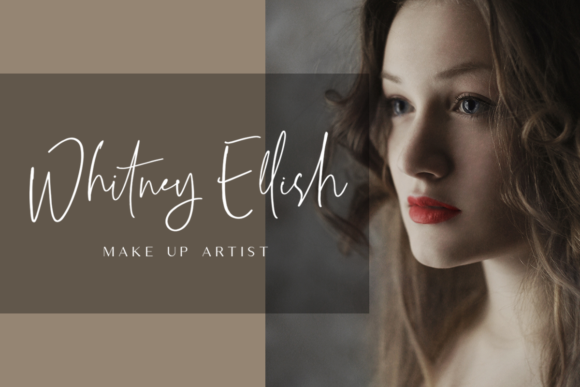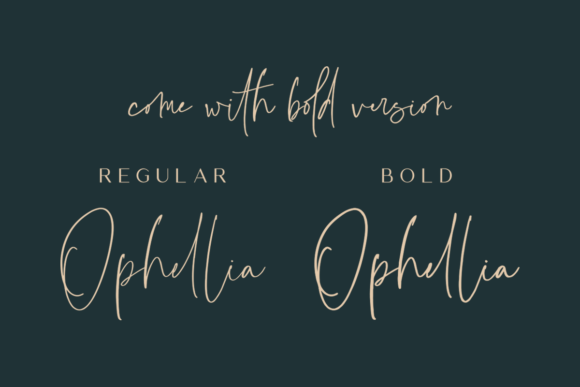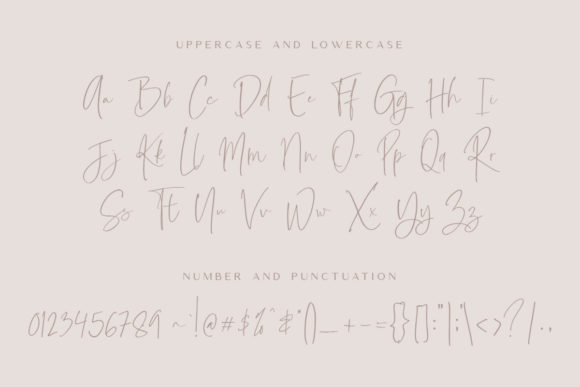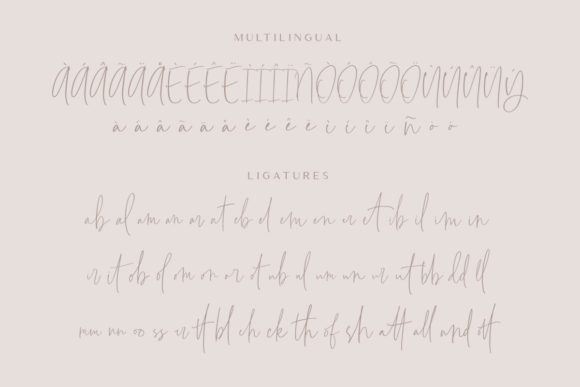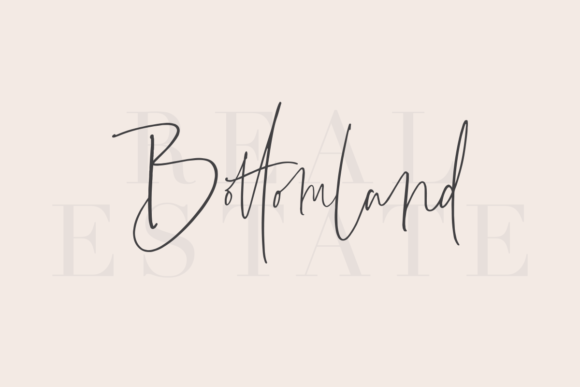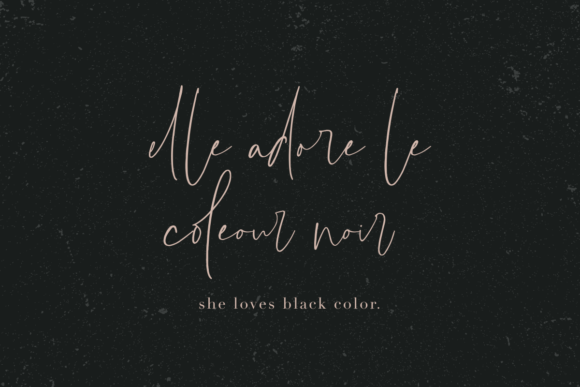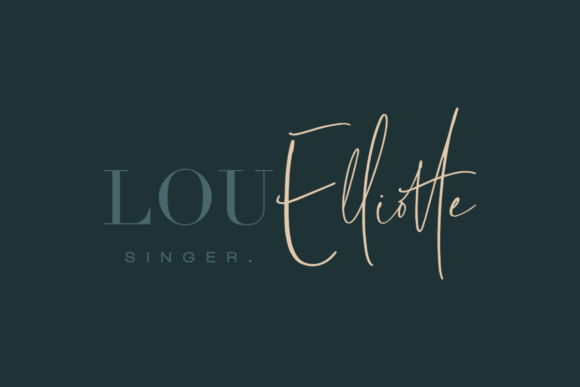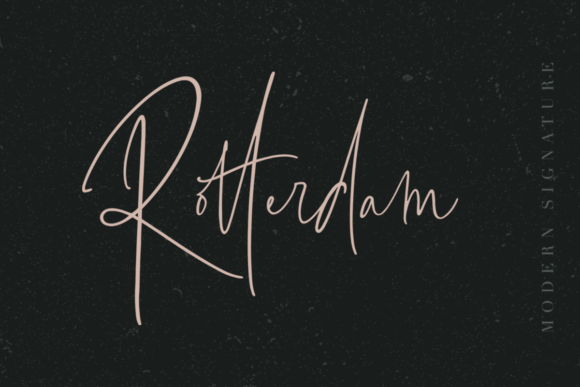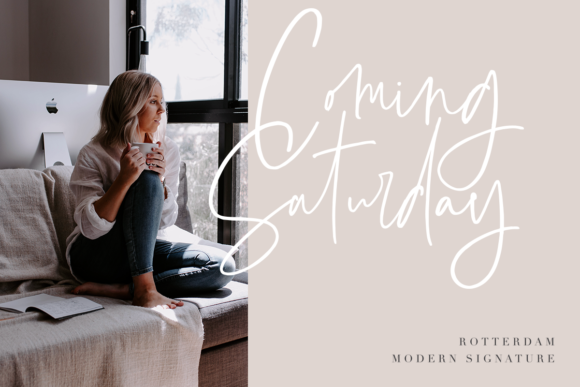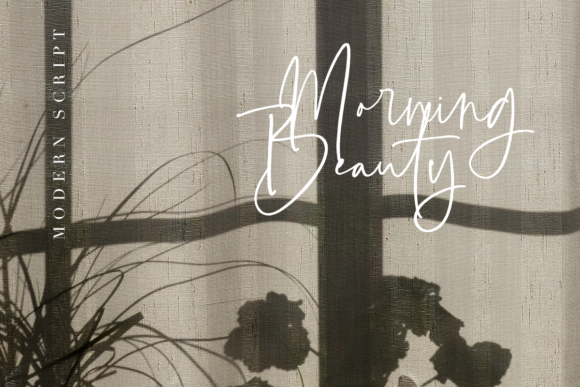
HomeScript FontsBottomland Font Script Fonts Bottomland Font FacebookXPinterestWhatsApp Bottomland Font Poster 2 Bottomland Font Poster 3 Bottomland Font Poster 4 Bottomland Font Poster 5 Bottomland Font Poster 6 Bottomland Font Poster 7 Bottomland Font Poster 8 Bottomland Font Poster 9 Bottomland Font Poster 10 Bottomland Font Poster 11 Bottomland Font Poster 12 Bottomland Font Poster 13 About Bottomland Font Bottomland is a font with stylish letter shapes and a contemporary twist. It’s perfect for a variety of projects! DOWNLOAD ON CREATIVE FABRICAThis font is sold and delivered by Creative Fabrica. Font Canyon may earn a commission if you buy through this link. People also explored Castya Font Hey dear Angelin Gilard Getting Bright Font Caline Font Gethoreys Font John Bones Font Handwriting Test Font Autumn Nature Font 311 0 TagsBottomland Font Previous articleMorena FontNext articleFunky Harmon Font LEAVE A REPLY Cancel reply Comment: Please enter your comment! Name:* Please enter your name here Email:* You have entered an incorrect email address! Please enter your email address here Website: Save my name, email, and website in this browser for the next time I comment. Personal Use Free Starry Cakes Personal Use Free Read more about this font Mellgatha Personal Use Free Read more about this font Astercla Personal Use Free Read more about this font Ardilla Font Personal Use Free Read more about this font BLOG The 10 Best Handwriting Fonts to Add Personality to Your Designs 10 of the Best Handwriting Fonts for Adding Personality to Your Designs There will undoubtedly be no other better choice than handwriting fonts to give... Transform Your Website: Elevate Your Typography with 7 Best Web Font Generators Elegant Wedding Invitation Fonts – Handwritten & Script Fonts Exploring Font Trends